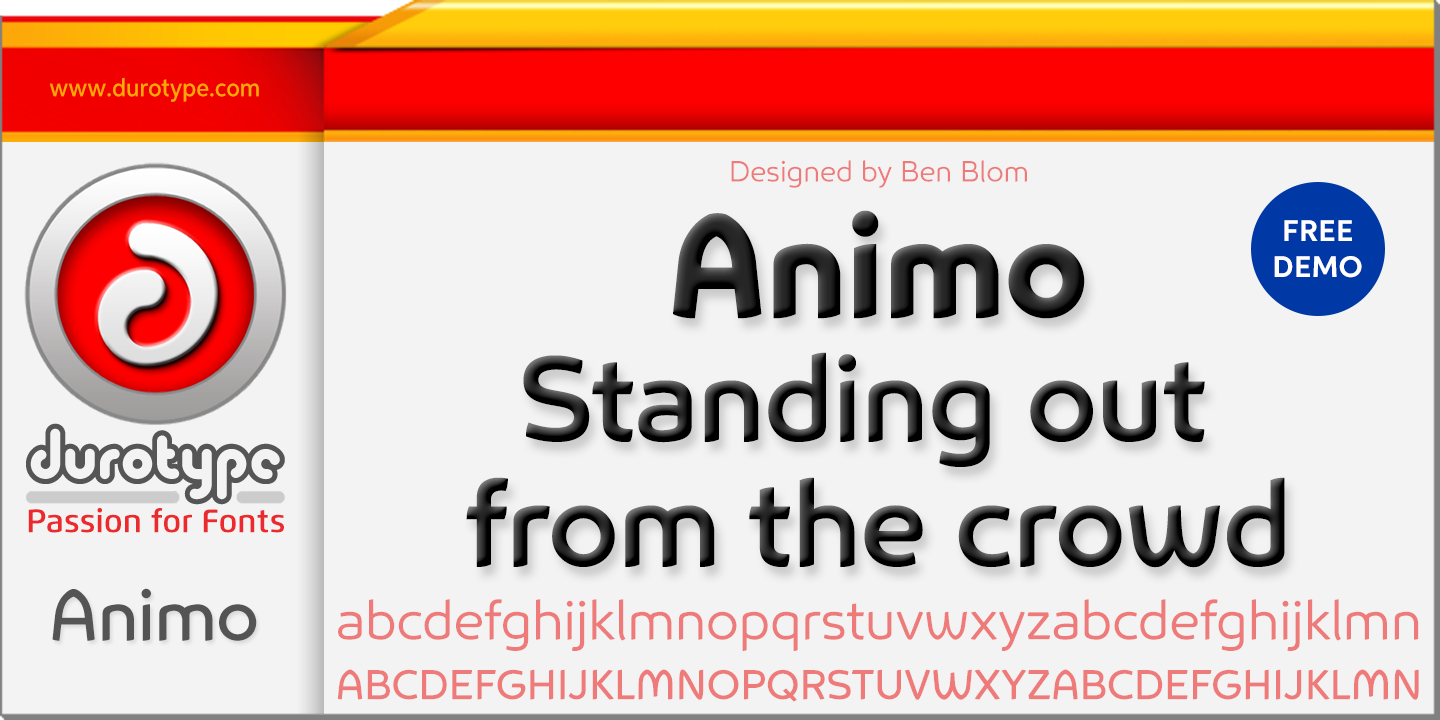
If you're searching for a stylish and versatile font, Animo Font Free Download is the perfect choice. This contemporary typeface offers a sleek design, making it ideal for branding, social media, logos, and creative projects. Whether you're a graphic designer or a business owner, Animo Font adds a professional touch to any visual content.
Why Choose Animo Font?
Animo Font stands out with its clean lines and modern aesthetic. It’s highly readable, making it great for headlines, posters, and digital content. The font supports multiple languages, ensuring global usability. Designers love its flexibility—it works well in both bold and subtle designs.
Brand logos & business cards
Social media graphics & ads
Website headers & promotional material
Print designs & packaging